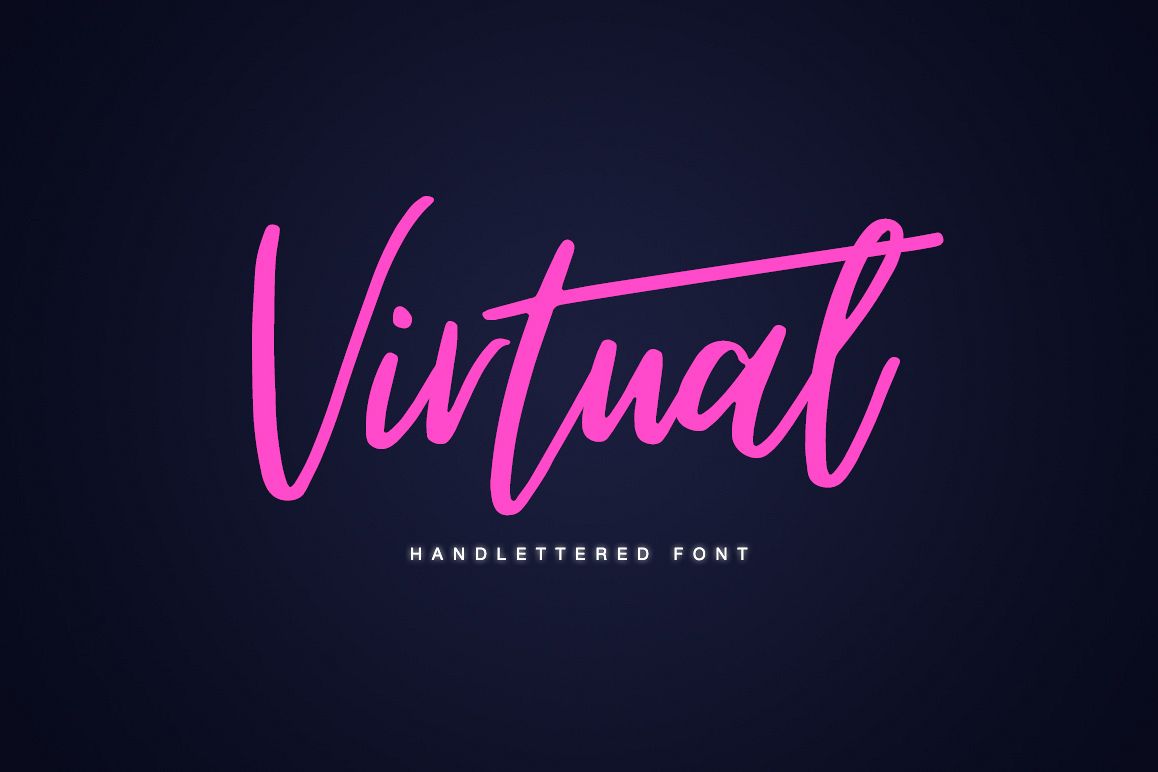
Virtual handwritten script
Virtual
The Virtual font is a simple font, comes with alternate symbols and some ligatures. I keep this font looks elegant, readable, stylish, and catchy.
• Support ALL European Languages